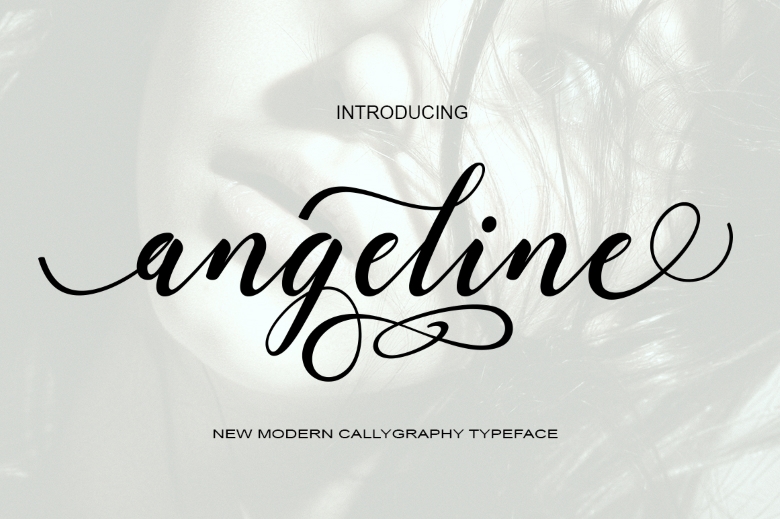
Angeline Font
Angeline is a nice cutting and simple handwritten font with an extremely warm atmosphere. This script is spectacular by virtue of its beautiful swashes and ligatures, which make this type very suitable. If you need fonts for IG, or scripts for cutting and pasting DIY, Angeline will give your ideas the artistic reality they deserve!
This font is PUA encoded, that is why all these great glyphs and swashes are at the tips of your fingers! It also possess numerous special extras as well as the occurrence of two types of the glyphs and several types of the ligatures.
Angeline Calligraphy Script Font